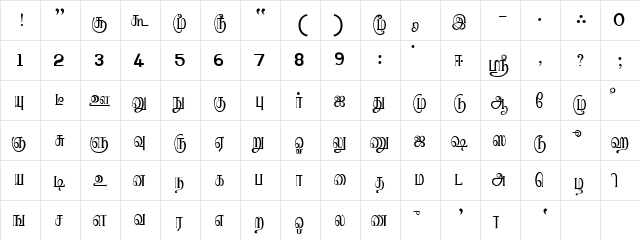
RRAVI Medium
Design Context for RRAVI Typeface
RRAVI is a composed and adaptable typeface that performs quietly and consistently across a wide range of design contexts.